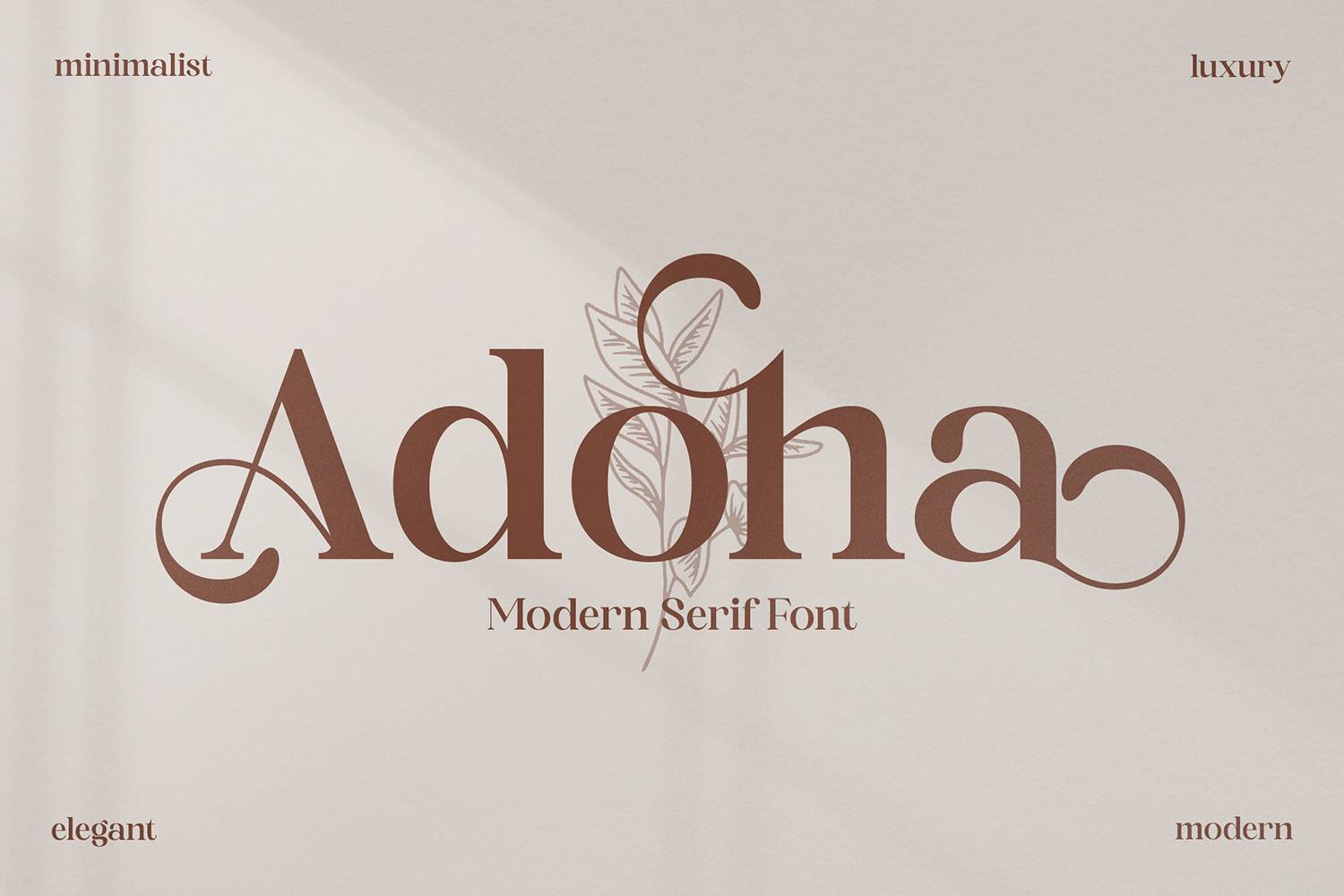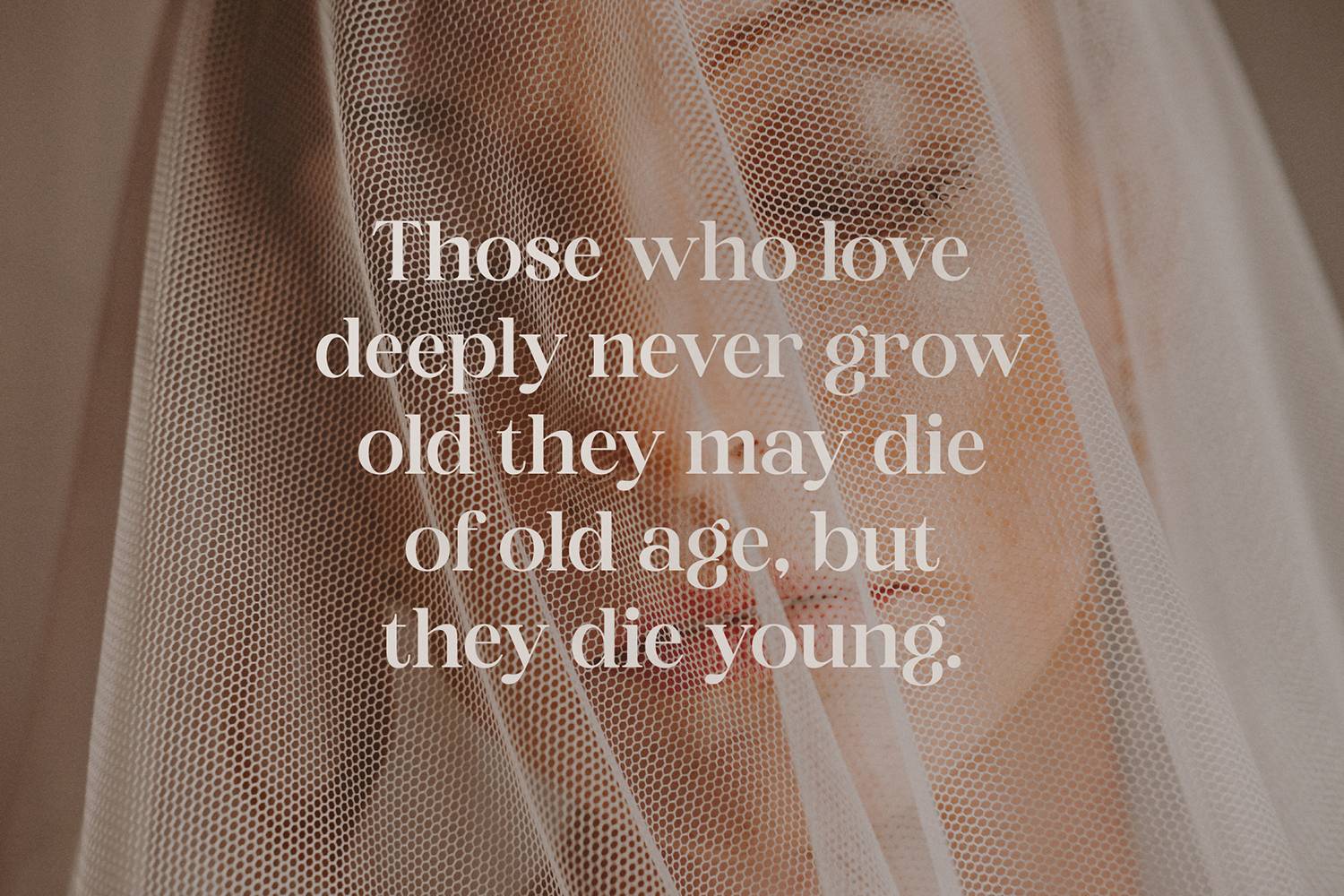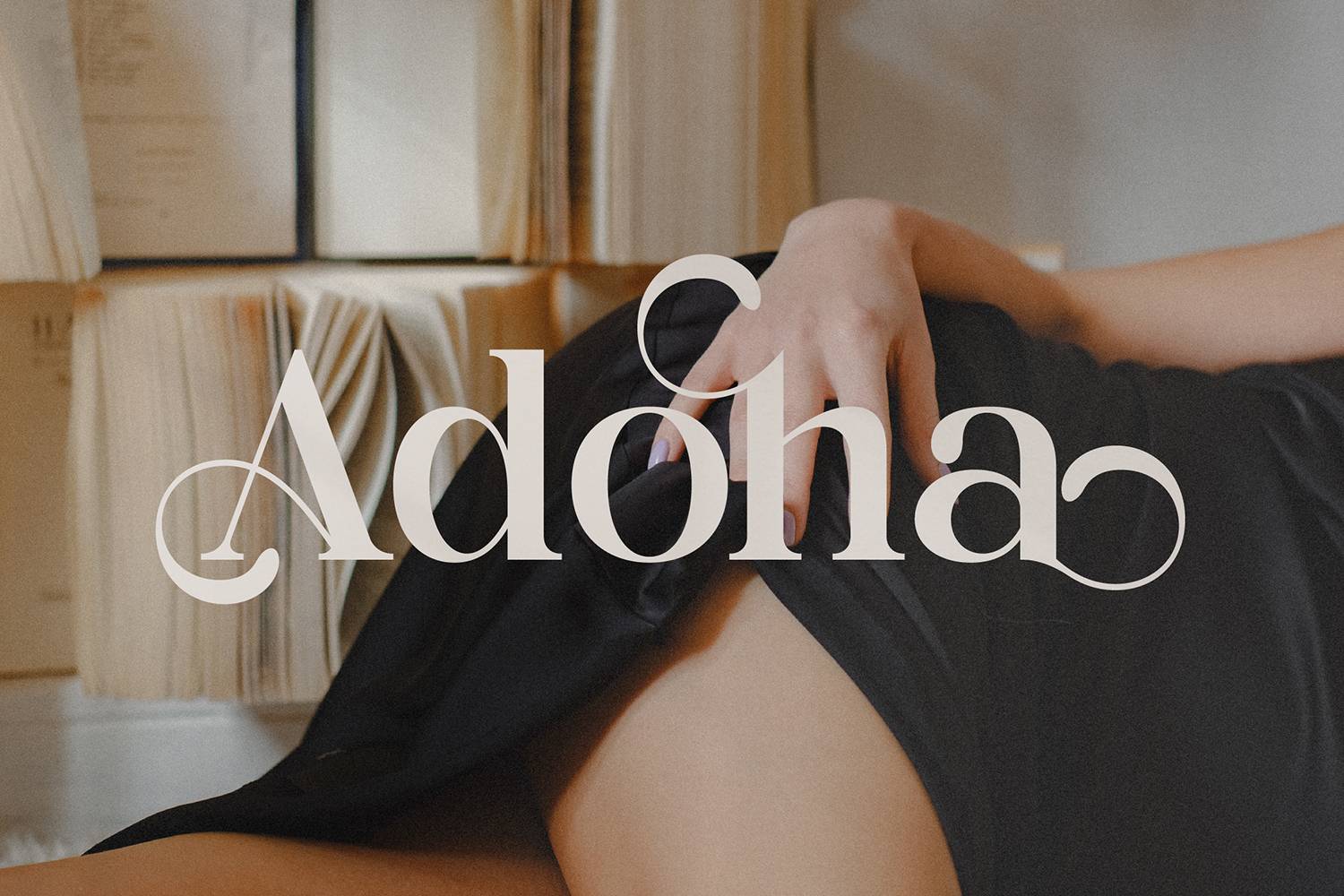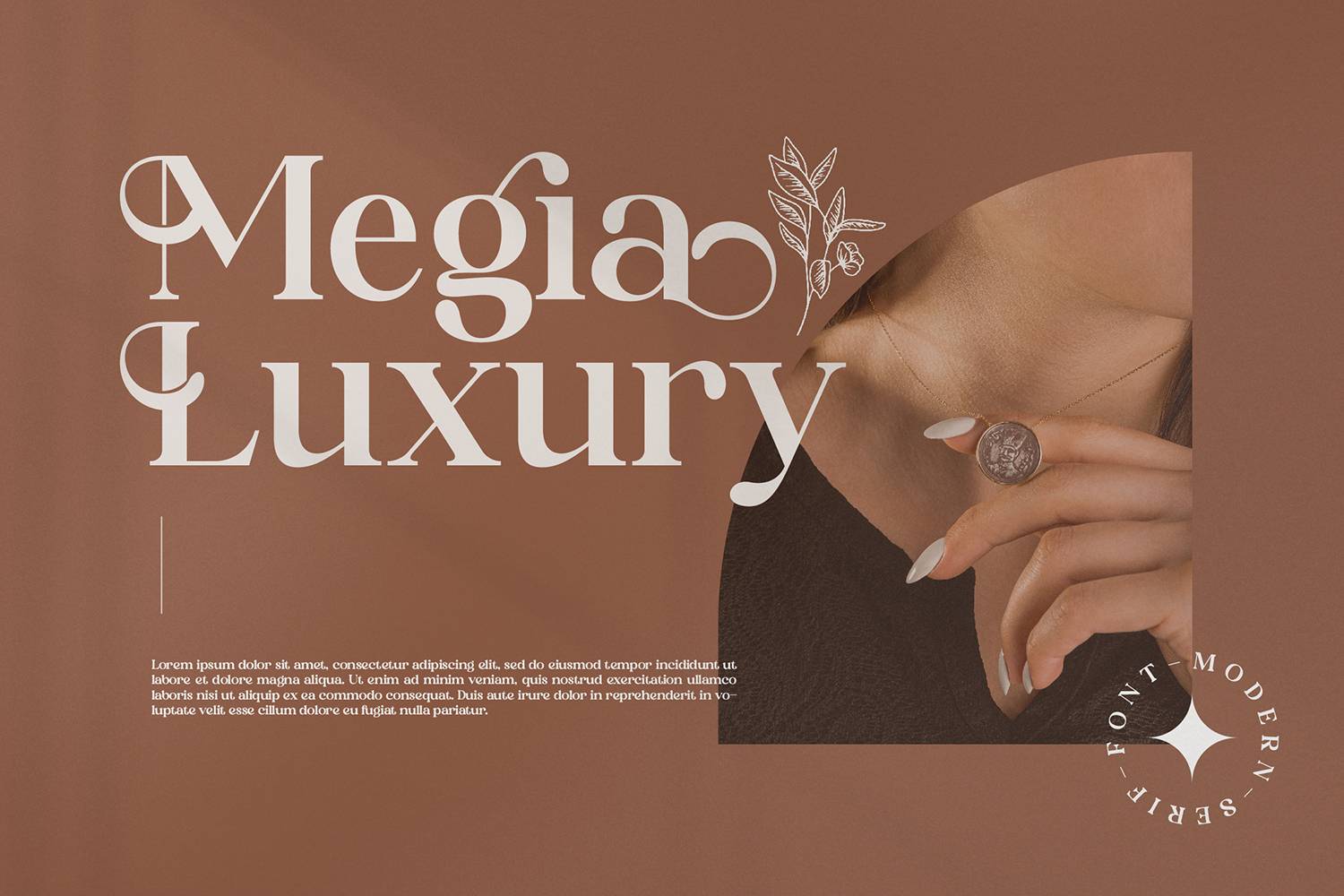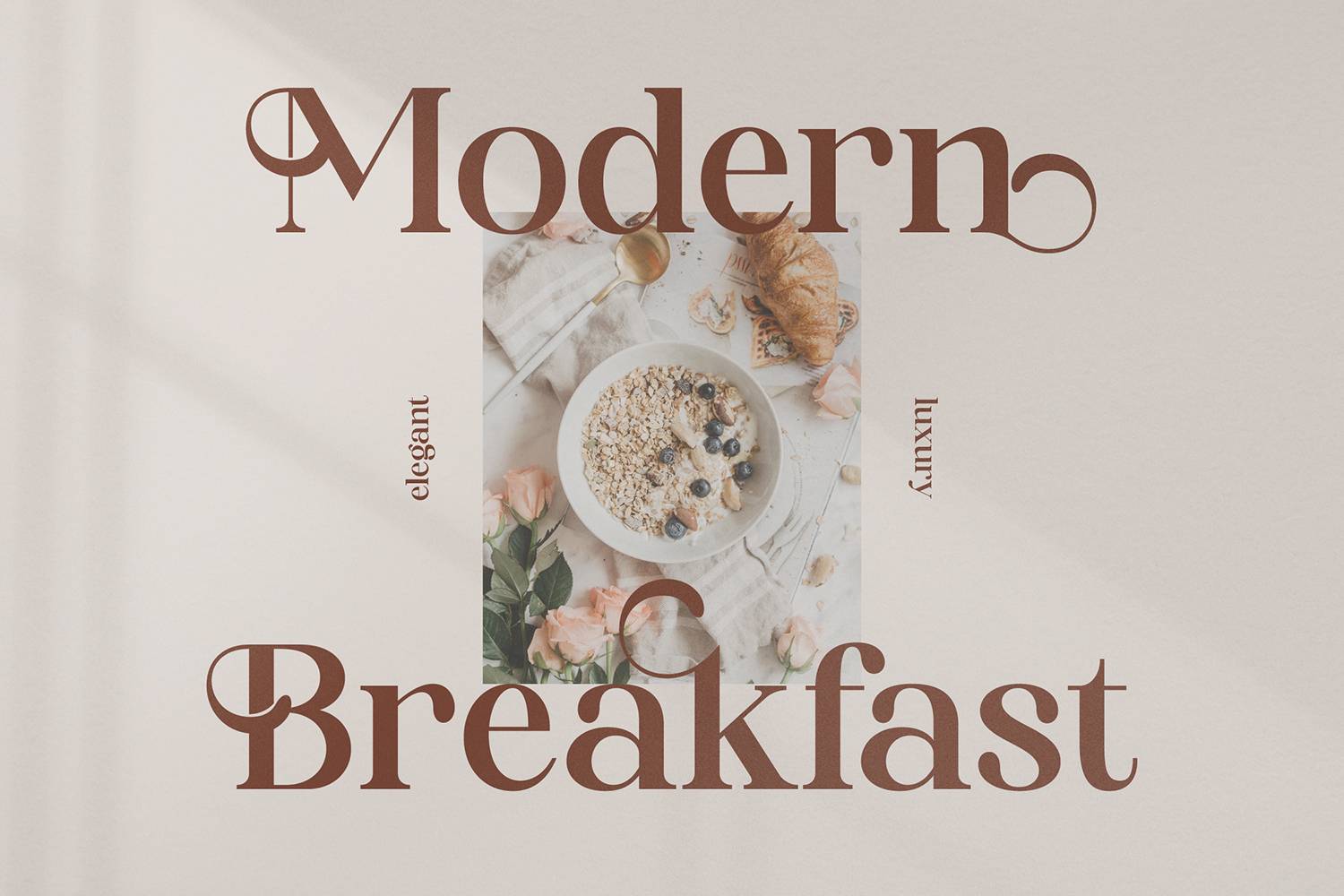
Adoha is an elegant serif font characterized by high contrast between thick and thin strokes and fine, sharp serifs, giving it a refined and sophisticated look. Its tall x-height and well-balanced letterforms make it ideal for luxurious branding, editorial headlines, and fashion-focused designs where a modern yet classic feel is desired. The font’s distinctive details, such as the curved tail on the Q and the unique ampersand, add personality while maintaining readability and style.
Adoha Font
About Adoha Font